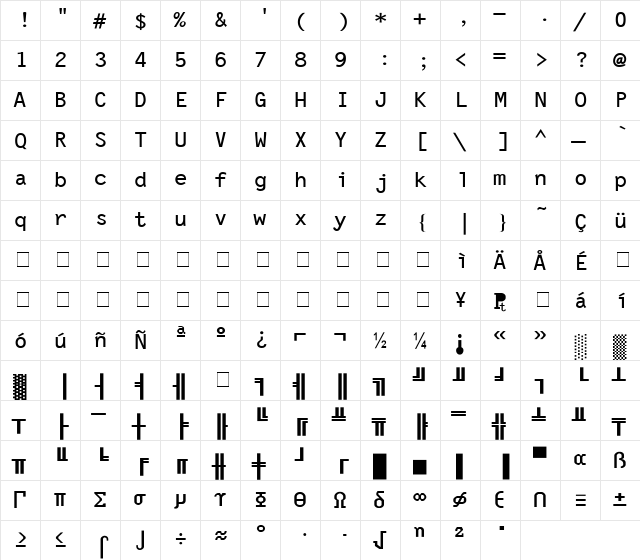
Letter Gothic Line Monospace
Design Context for Letter Gothic Line Typeface
Letter Gothic Line uses fixed-width spacing throughout, giving it the structured, systematic character associated with coding environments and technical documentation.
Well-suited to data-driven dashboards, coding tutorials, and any design that wants to reference the world of programming.
Pro Tip: Use Letter Gothic Line with slightly increased line-height for extended reading — fixed-width spacing can feel dense in longer passages without extra breathing room.